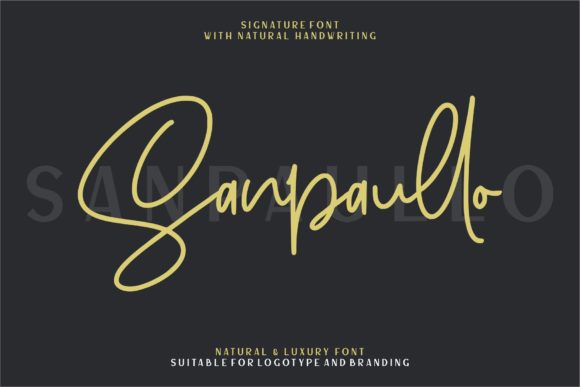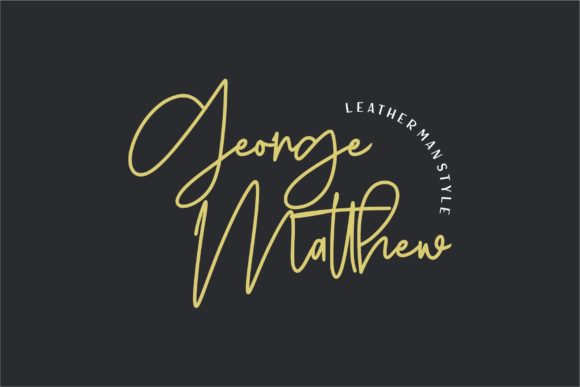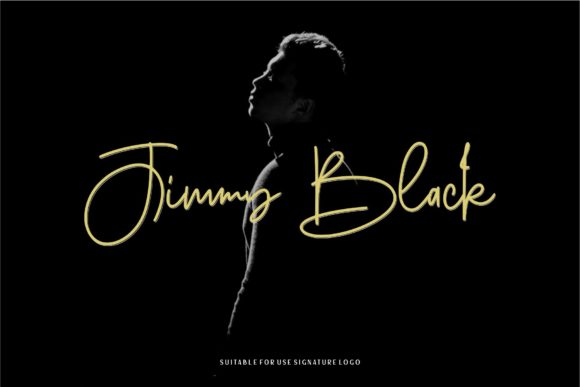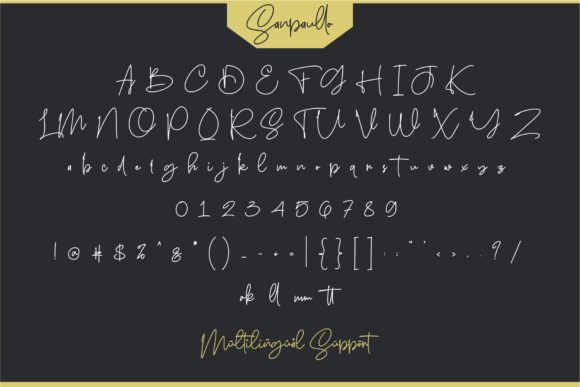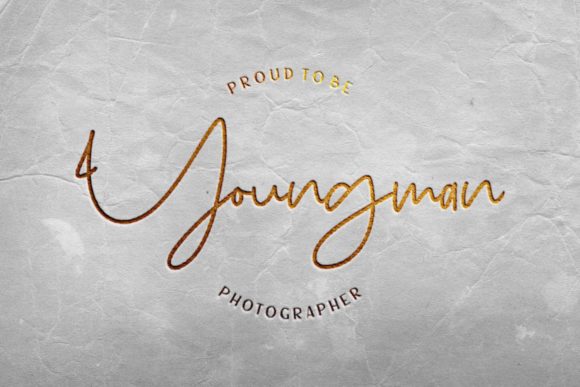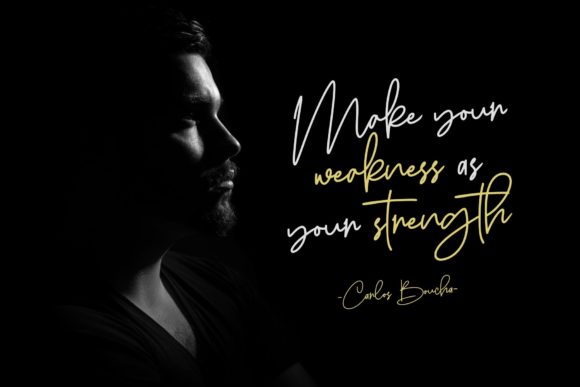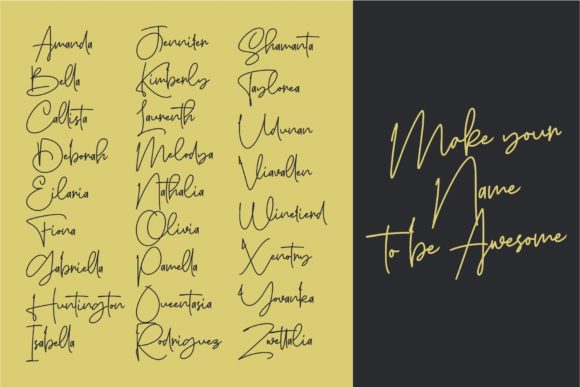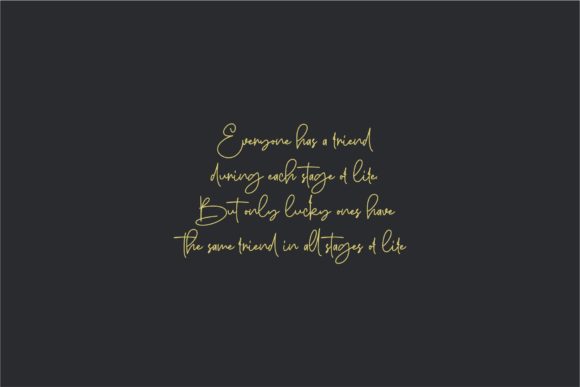
Sanpaullo Font
About Sanpaullo Font
Sanpaullo is a natural handwritten font with a unique feel. Use it to add a light and modern feel to any design project.